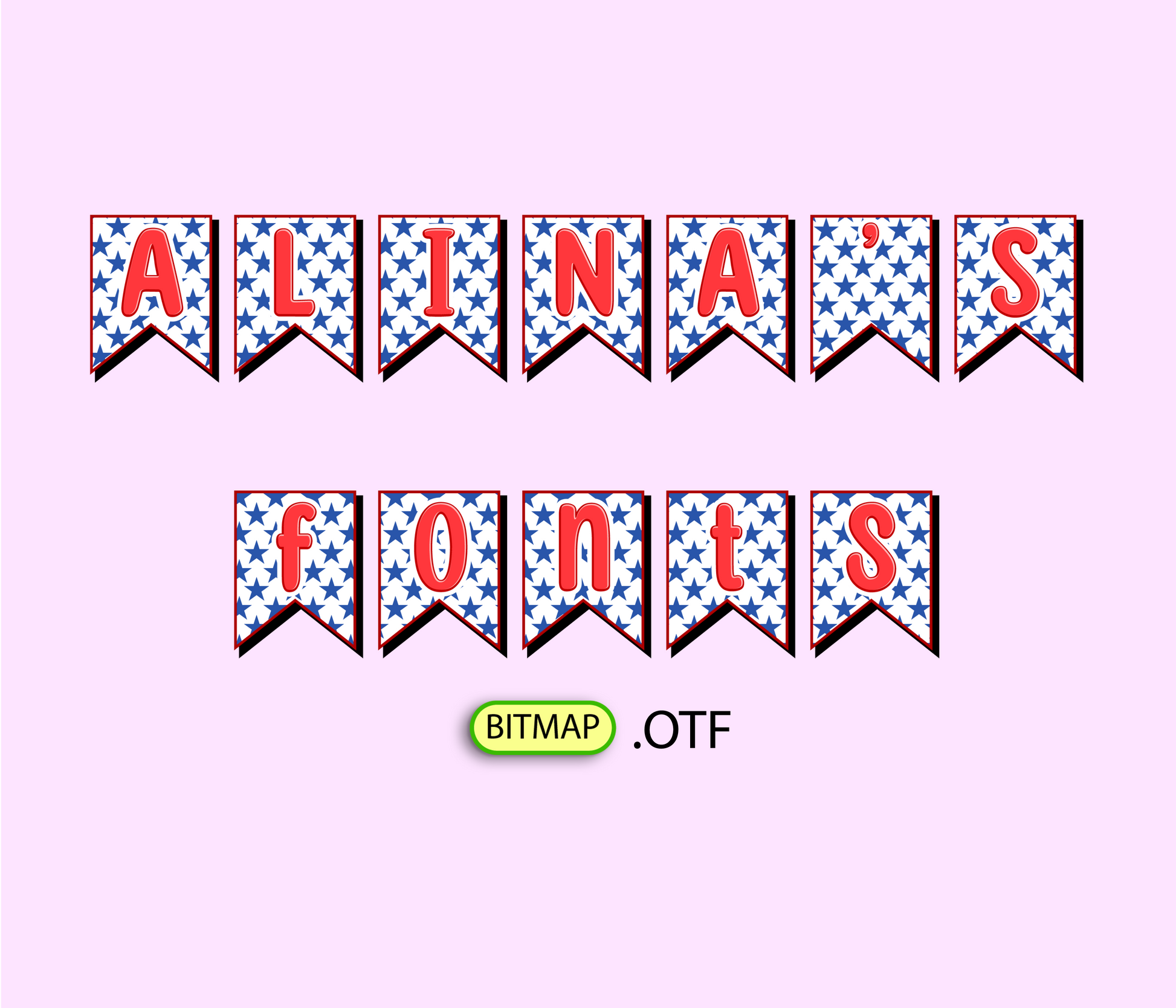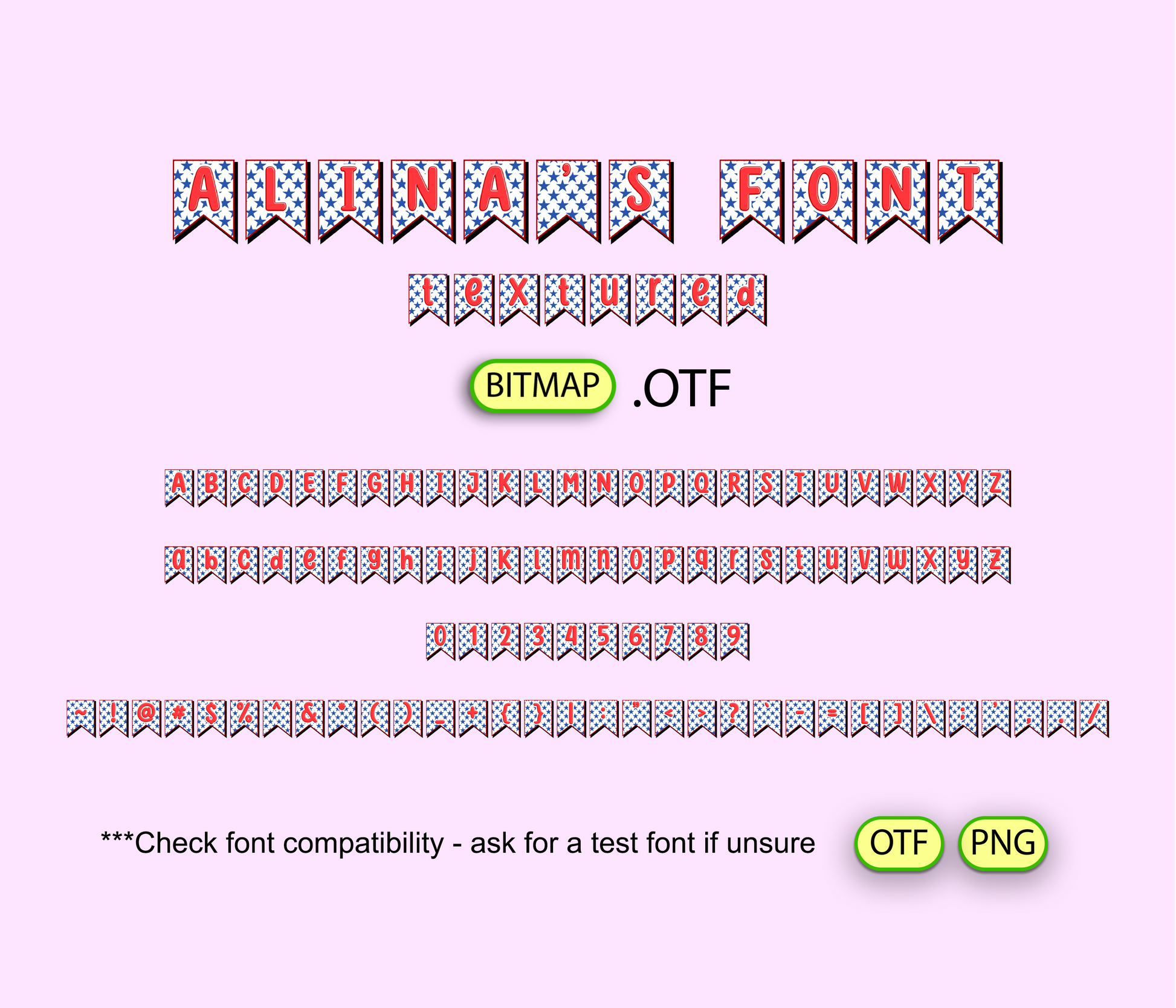
Freedom Eagle Banner Font Textured
Step into the soaring majesty of national symbol freedom and untamed patriotic wilderness spirit with our Freedom Eagle Font Textured, capturing the essence of wingspan grandeur and legendary national bird commemoration narratives. Perfect for Independence Day celebration planners, patriotic outdoor enthusiasts, wildlife heritage coordinators, and majestic design specialists, this font brings the bold, soaring character of beloved national bird freedom narratives to your projects. Create soaring invitations, commercial goods, or web content with the majestic presence of wingspan freedom storytelling.
Majestic Typography for Independence Day & Patriotic Freedom Projects
Our Freedom Eagle Font Textured features bold, soaring letterforms with wingspan grandeur textures reflecting the world of legendary national bird symbols and iconic untamed freedom wilderness spirit.
- Event Promotions: Craft soaring invitations, banners, and party decorations for Independence Day celebrations, patriotic wildlife gatherings, and freedom-themed festivals that radiate the majestic spirit of legendary national bird entertainment
- Merchandise Design: Perfect for apparel, wall prints, adhesive graphics, and patriotic collectibles that showcase the soaring aesthetic of wingspan grandeur and national freedom symbol themes
- Digital Media: Soar across websites, content channels, and social platforms with majestic header designs and imagery that express the grandeur of legendary Independence Day national bird festivities
- Creative Content: Add signature wingspan flair to patriotic illustrations, wildlife artwork, and imaginative projects inspired by beloved national bird commemoration chronicles
- Personal Projects: Stir majestic freedom spirit into memory albums, handcrafted items, and living space decorations inspired by the world of legendary national bird celebration characters
Our font pays tribute to the world of wingspan grandeur wonder and generation-spanning national freedom symbol culture, empowering your projects with its bold and soaring majestic character. Whether crafting Independence Day materials, designing wildlife heritage products, or adding a national bird touch to personal projects, this font communicates the majestic essence of freedom wingspan magic. Ready to soar majestic freedom spirit into your creations? This font is your key to attention-grabbing, impactful design.